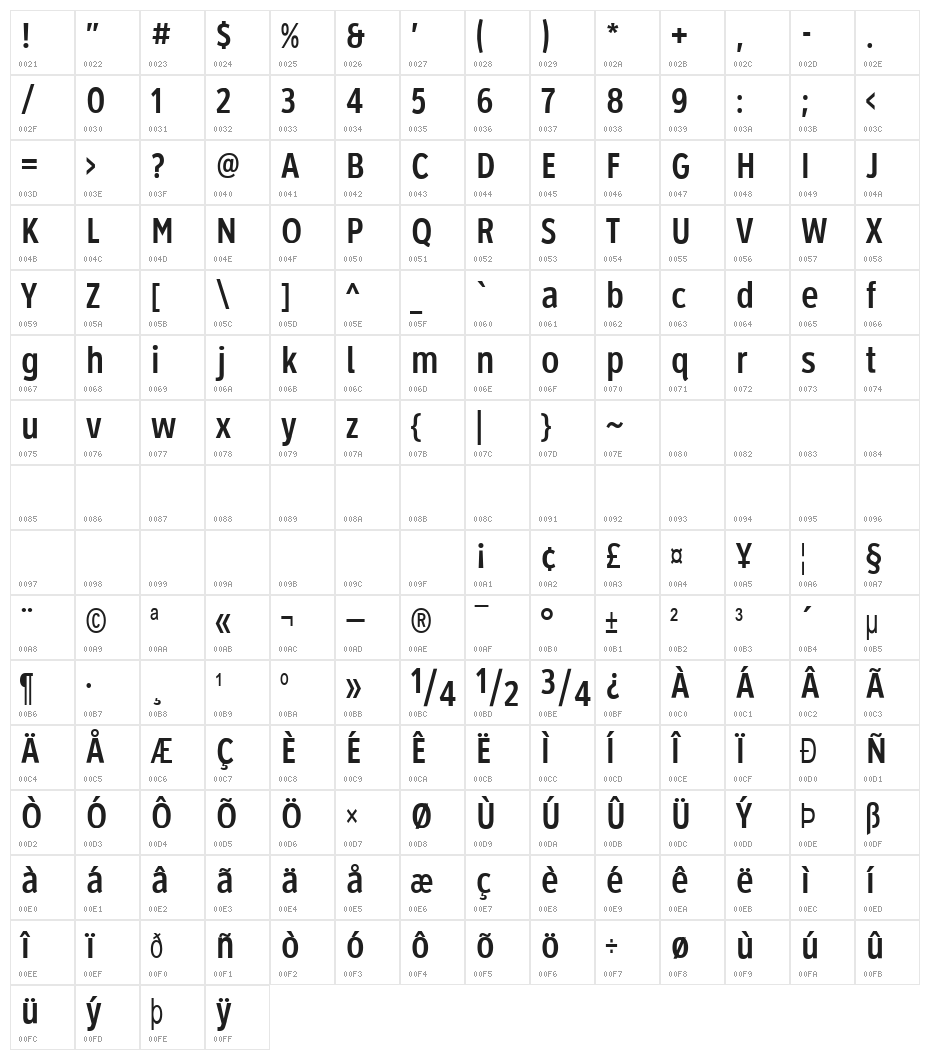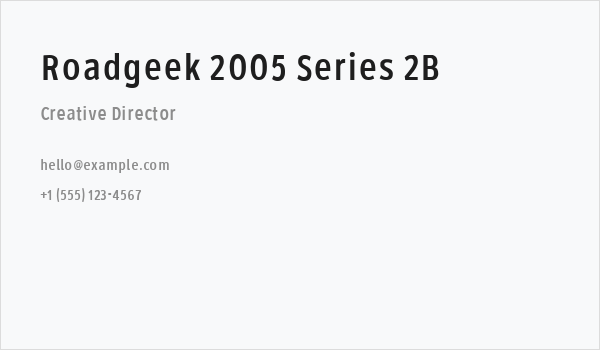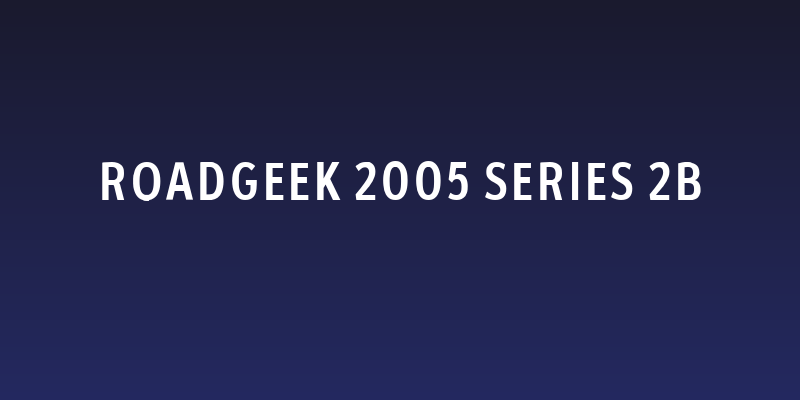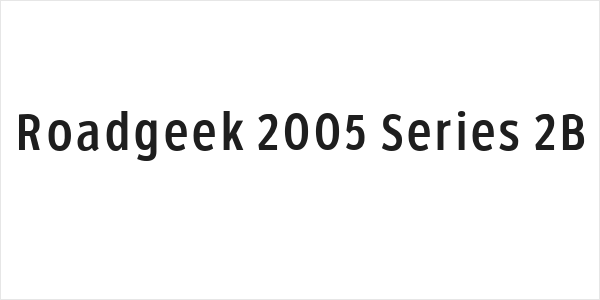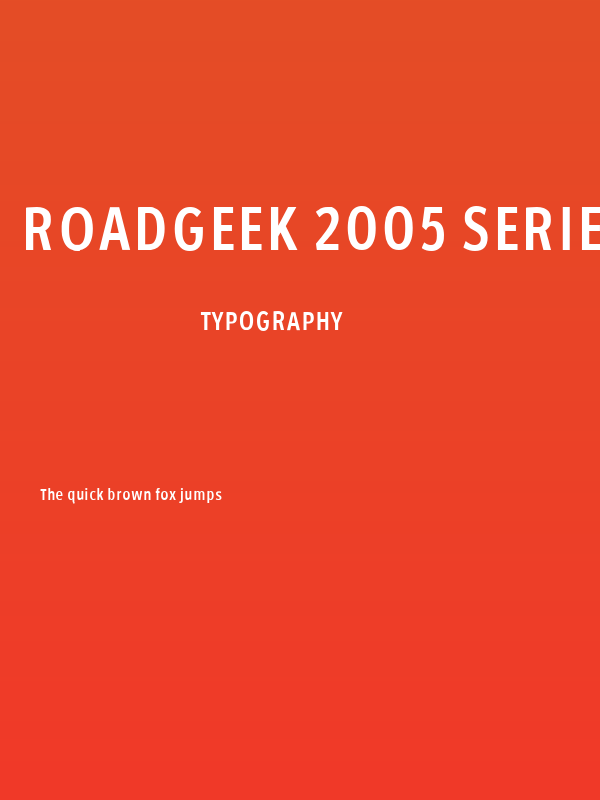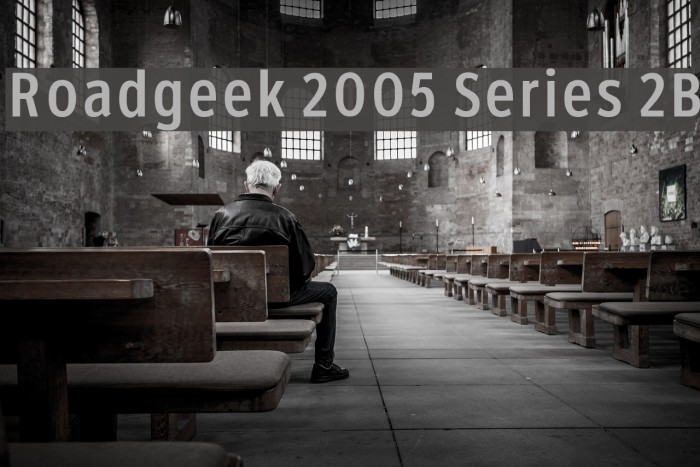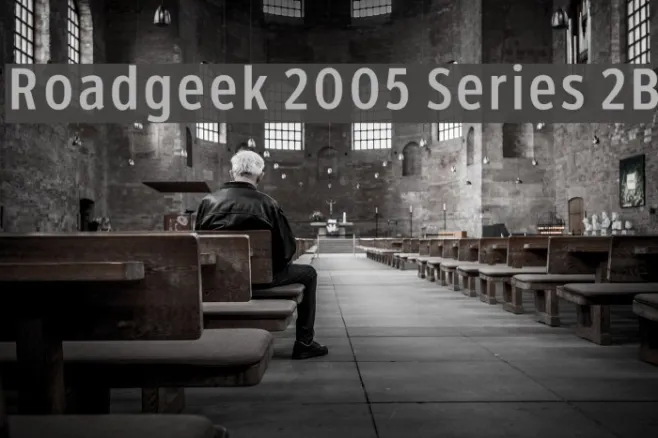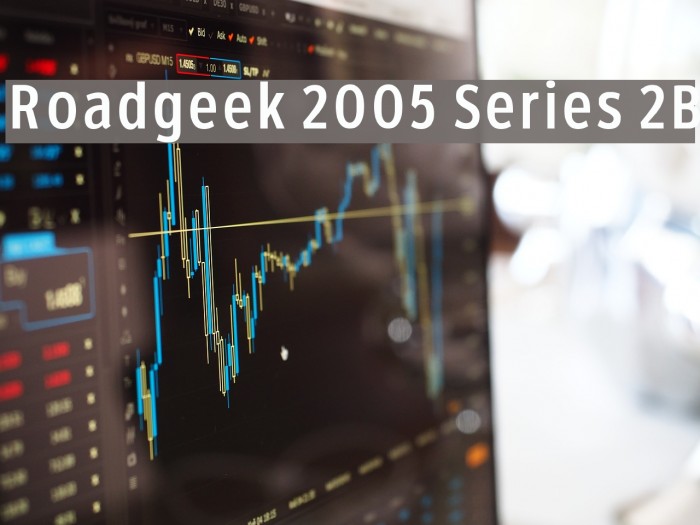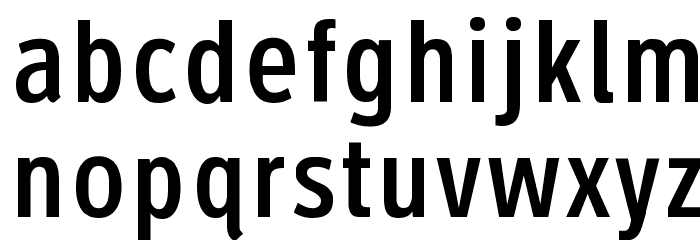
Roadgeek 2005 Series 2B Font
Roadgeek 2005 Series 2B Description
This font features a clean and modern sans-serif style, characterized by its clear and straightforward letterforms. The uppercase and lowercase letters are well-proportioned, with a consistent stroke width that provides a uniform appearance. The numerals are bold and easily distinguishable, making them suitable for various applications. Special characters are included, maintaining the same design ethos as the alphanumeric characters. The overall design is functional and legible, ideal for signage and display purposes where clarity is paramount.
| Use Case | Headlines, Signage, Displays |
| Proposed Projects | Ideal for road signage, informational displays, and any project requiring high readability. |